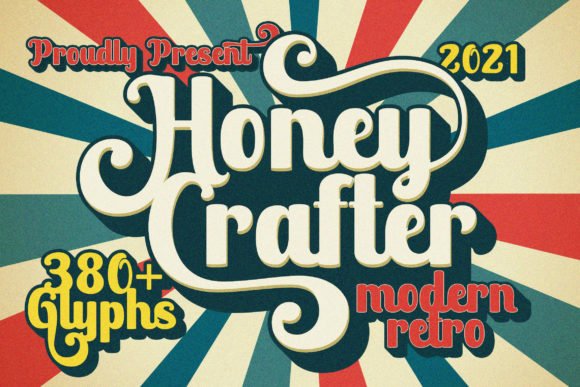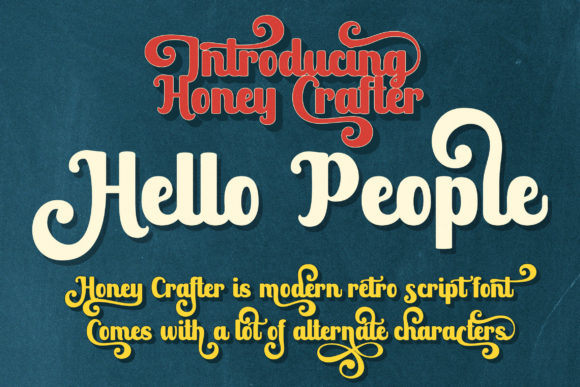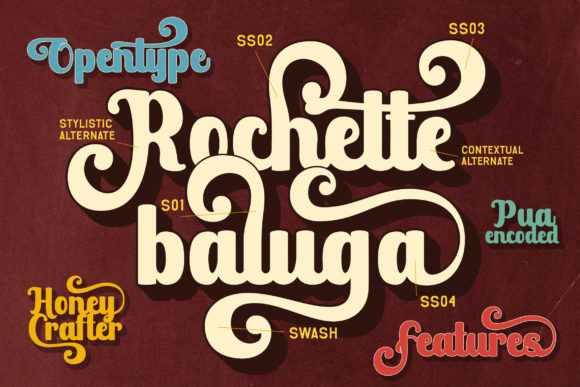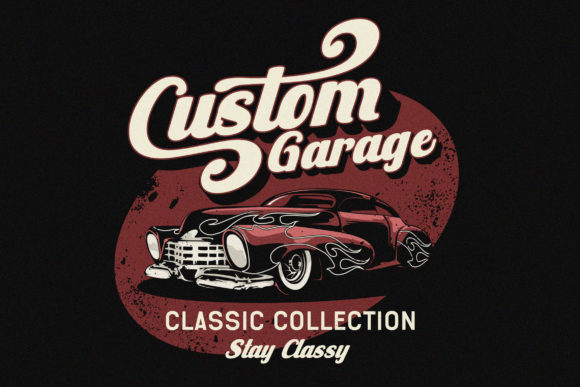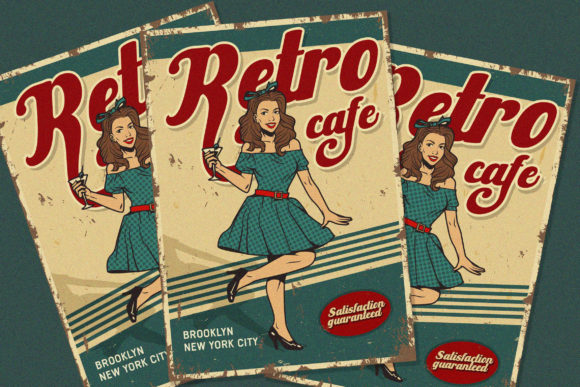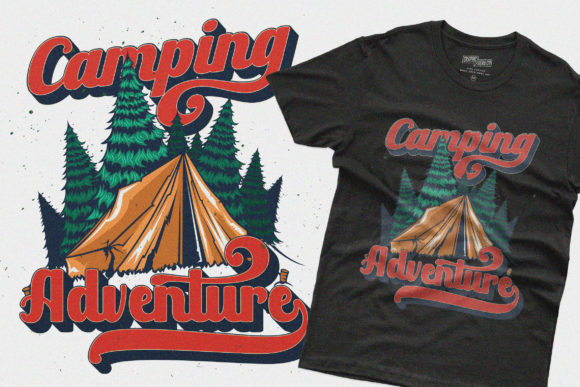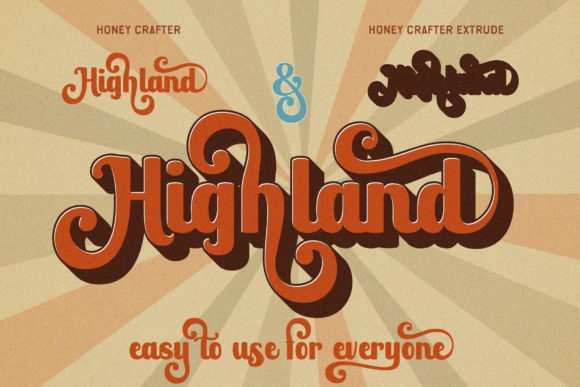
The Perfect Blend: Elevating Your Designs with the Honey Crafter Font
This gorgeous and bold handwritten font is crafted to give your headlines and logotype projects a stylish touch. With its strong, confident, and dynamic feel, it’s the perfect addition to any design. Whether you’re a seasoned pro or a budding designer, the Honey Crafter Font is a valuable asset to your toolkit – and with its PUA encoding, accessing all its amazing glyphs and ligatures is a breeze!
- Unique Characteristics: The Honey Crafter Font features a unique, hand-crafted design with subtle imperfections and texture, giving it a warm and inviting feel that is perfect for creative and artisanal projects.
Honey Crafter Font Review
I recently had the chance to work with the Honey Crafter Font, and I’m excited to share my thoughts on this charming script font. ✨ First of all, I love the natural, hand-written feel that it brings to any design project. The subtle imperfections and varying line widths give it a unique, organic look that’s perfect for crafting a sense of warmth and personality.
Some of the things that work well with the Honey Crafter Font include:
- Its flexibility in various design contexts – it can be used for both modern and traditional projects
- The wide range of font weights and styles available, making it easy to achieve the perfect look
- The high-quality, clear digital rendering that ensures crisp, clean text
- ⚠️ The font may not be the best choice for highly formal or corporate projects, as its hand-written feel can come across as unprofessional
- ⚠️ It may require some tweaking to get the spacing and alignment just right, as the font’s organic nature can sometimes make it difficult to achieve perfect uniformity
Overall, I think the Honey Crafter Font is a great addition to any designer’s toolkit, as long as you’re aware of its limitations and use it in the right context. It’s a great choice for projects where you want to add a touch of personality and warmth, and I think it’s definitely worth checking out.
Tips for Getting the Most Out of Honey Crafter Font
Use Honey Crafter Font for titles and headings to add a touch of elegance to your designs.
Pair Honey Crafter Font with other fonts to create a unique and visually appealing typography.
Experiment with different font sizes and styles to achieve the desired effect.
Honey Crafter Font is ideal for:
Branding and marketing materials